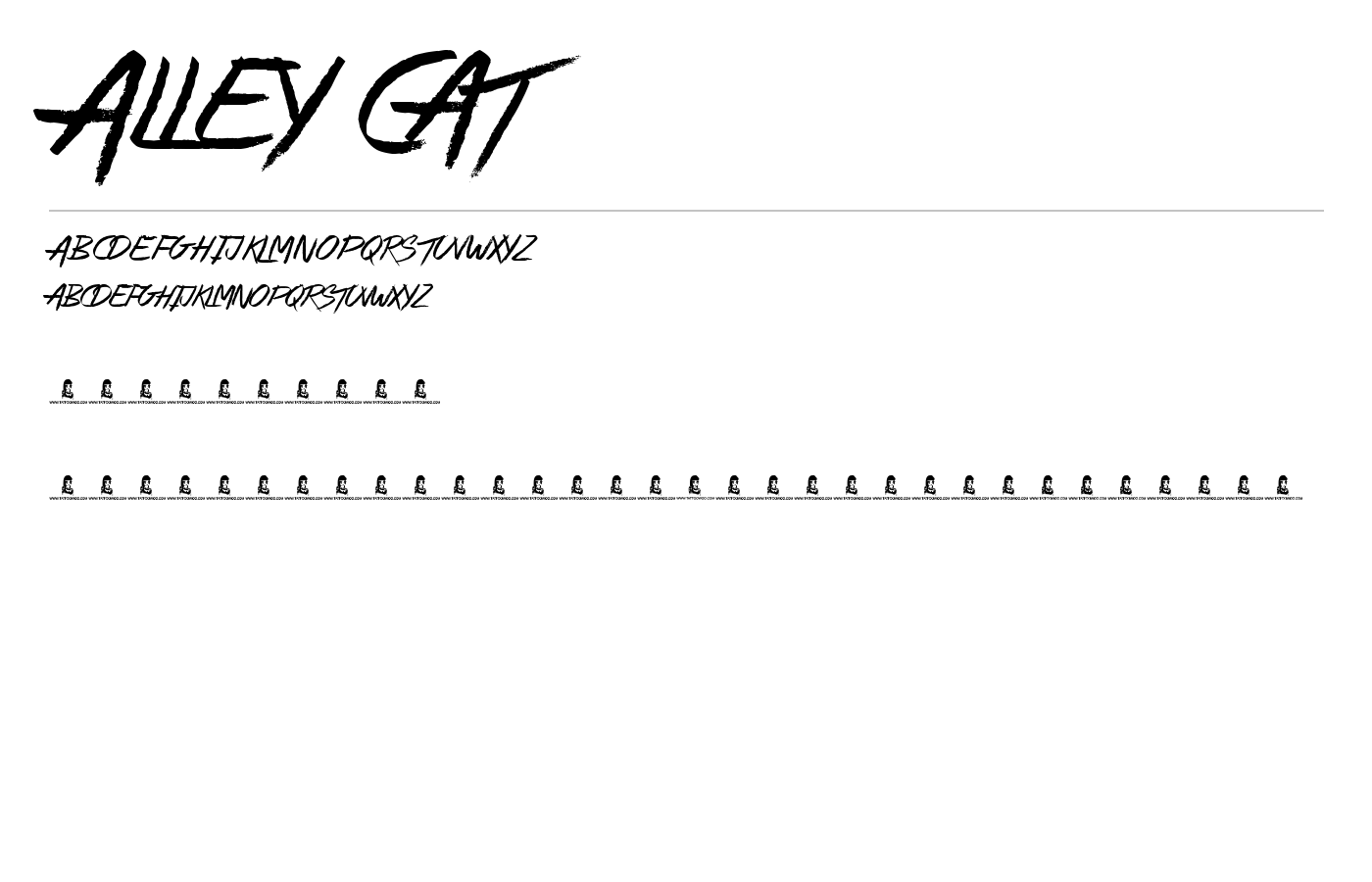
Alley Cat is a bold, brush script font that captures a raw and energetic handwritten style with its sharp, irregular strokes and high contrast. Its slightly condensed letterforms and dynamic flow make it ideal for edgy, creative designs that want to convey spontaneity and attitude. This font works best for posters, logos, and branding in artsy or urban contexts where a distinctive, casual vibe is needed.
Alley Cat Font
About Alley Cat Font